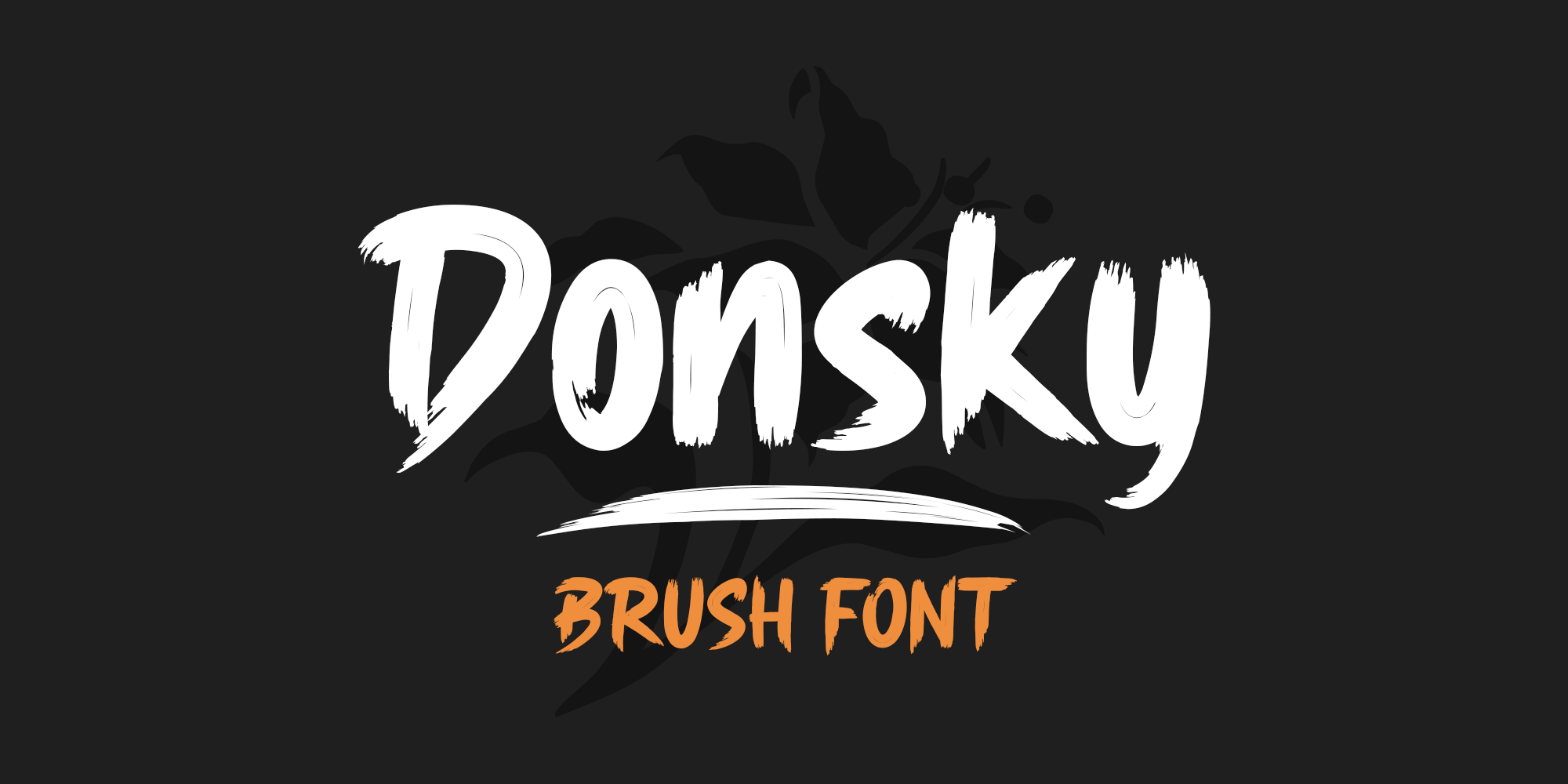
The Donsky Font is a charismatic and often hand-drawn typeface, designed to convey a sense of playful creativity, informal charm, or a genuine personal touch. Its unique character, which might include slightly irregular baselines, brush-like strokes, or a textured appearance, makes it an excellent choice for casual branding, children's book covers, artisanal product packaging, social media graphics, invitations for relaxed events, and creative blog headers. Whether you’re crafting a whimsical illustration or a heartwarming brand identity, this font will infuse your project with a sense of approachable artistry and unique character.
What makes the Donsky Font so exciting is its ability to blend a distinctive, artistic style with a clear structure, making it both endearing and functional. It's perfect for designers who want to create an atmosphere of warmth, individuality, or a playful, unpolished authenticity. This font stands out by offering a unique visual voice that is both captivating and memorable, making any text it graces feel uniquely created and thoughtfully presented. The subtle imperfections and fluid movement often found within its letterforms contribute to its artistic appeal, ensuring your message is conveyed with a distinctive and engaging flair.
The Donsky Font typically offers a versatile range of features to support diverse design needs. While specific offerings may vary depending on the font package, you can generally expect to find a Regular weight, often complemented by a Bold version for added emphasis and versatility. Some versions of the Donsky Font Free Download might also include alternate characters, ligatures (connecting letter pairs to create a more natural flow), or even a small collection of ornamental elements designed to complement its unique personality, allowing for even greater customization and thematic depth. These features ensure that the Donsky Font can be adapted to almost any design requirement where an artistic, charming, or authentically textured statement is desired, maintaining its consistent expressive appeal throughout your project.